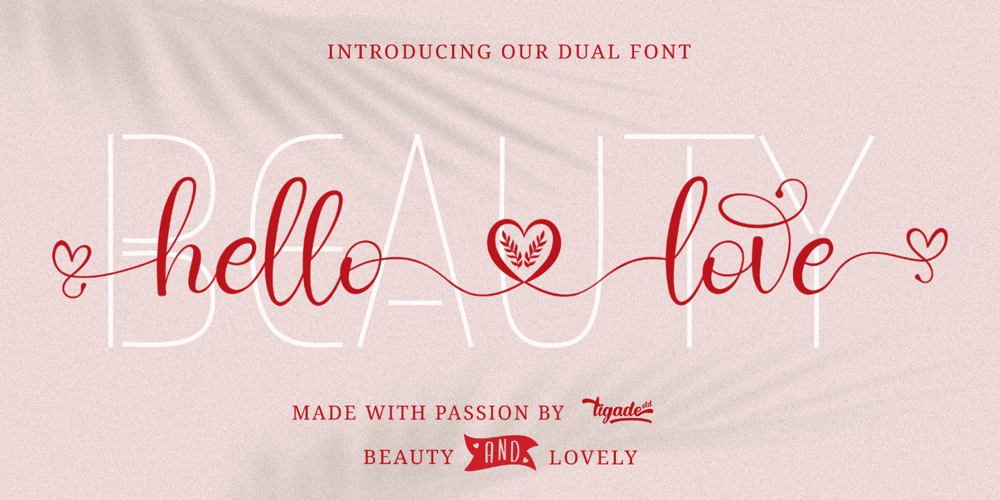
Hello Love Font Family was designed by Doli Harahap and published by Tigade Std. Hello Love contains 2 styles and family package options. Hello Love is an elegant and flowing handwritten font. It is PUA encoded which means you can access all of the glyphs and swashes with ease! It features a varying alternates for head and tail, gorgeous glyphs and stunning heart in between. It maintains its classy calligraphic influences while feeling contemporary and fresh. Fall in love with this font and bring your projects to the highest levels!Wait, not only that. This font come with an additional sans serif bonus font as part of its family. So yeah, it is a dual font!